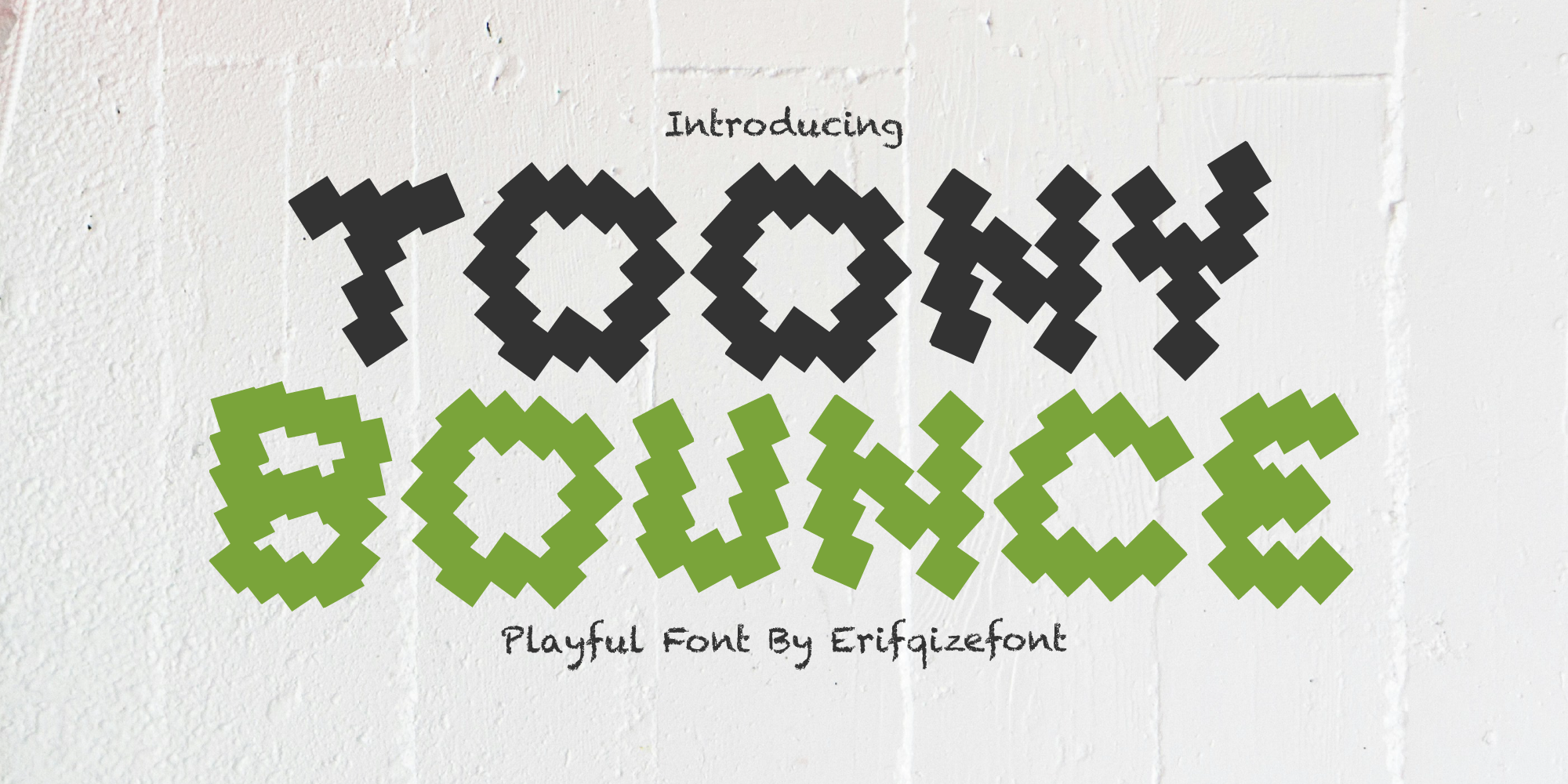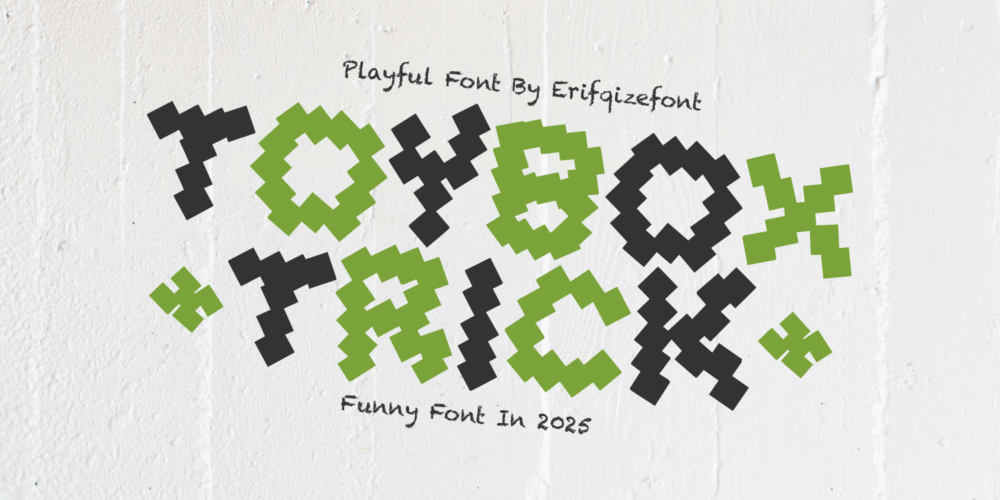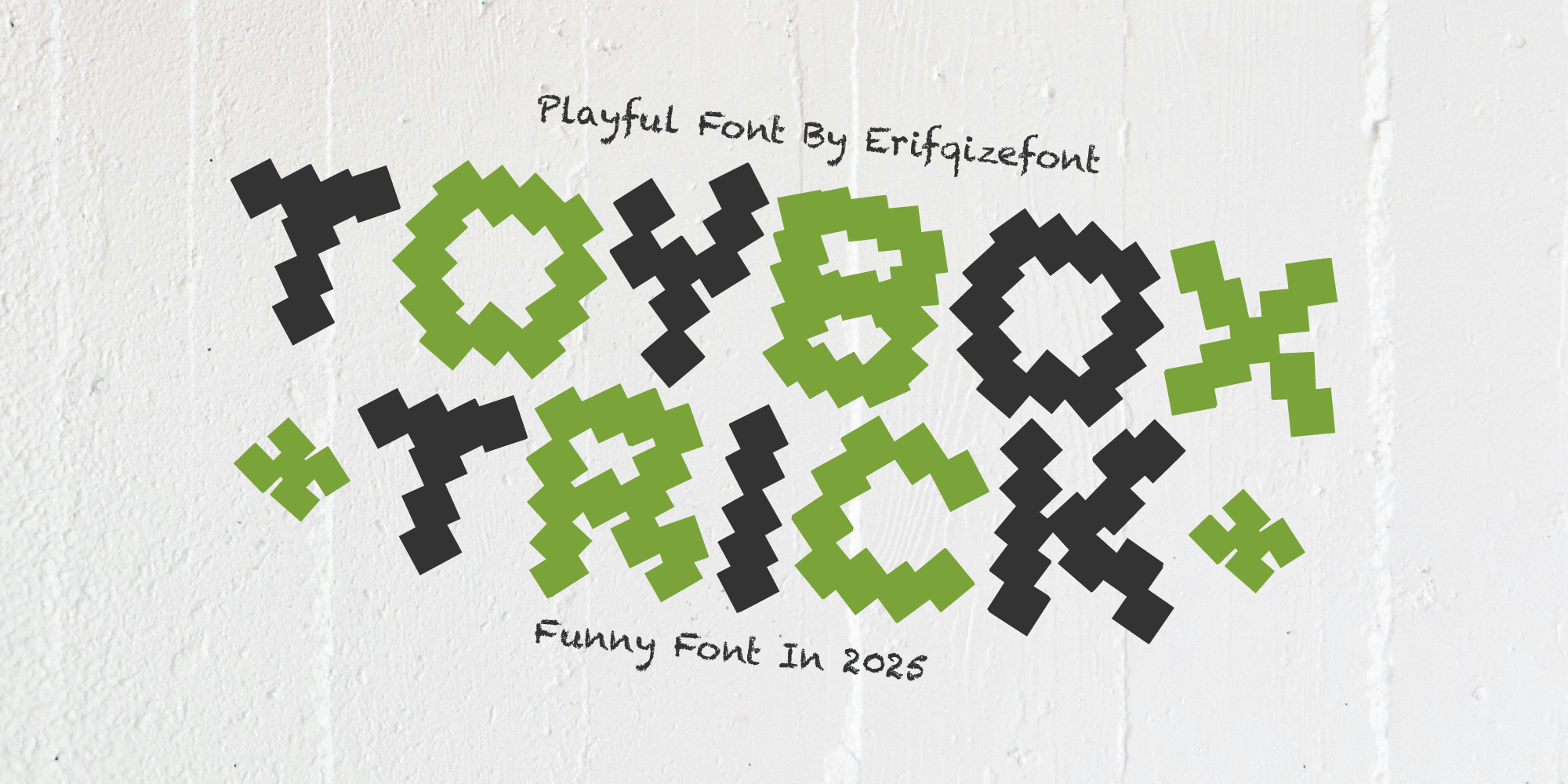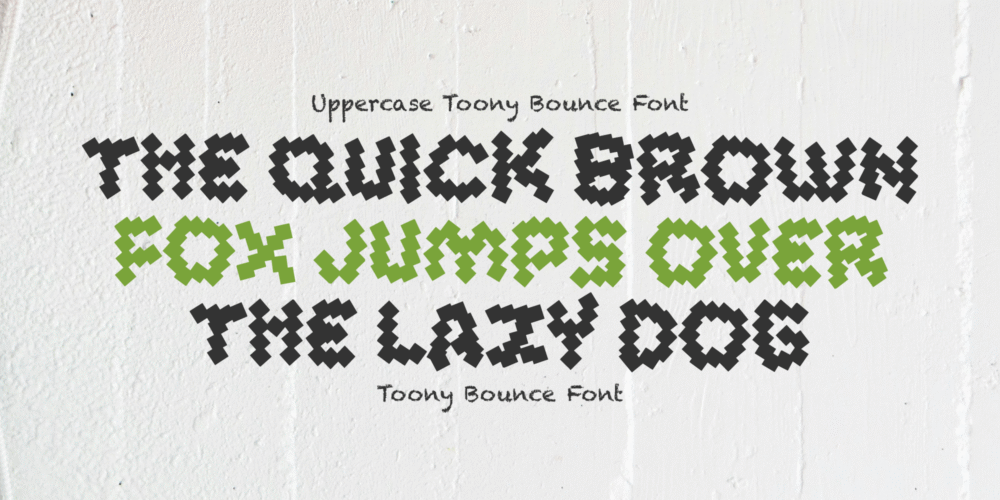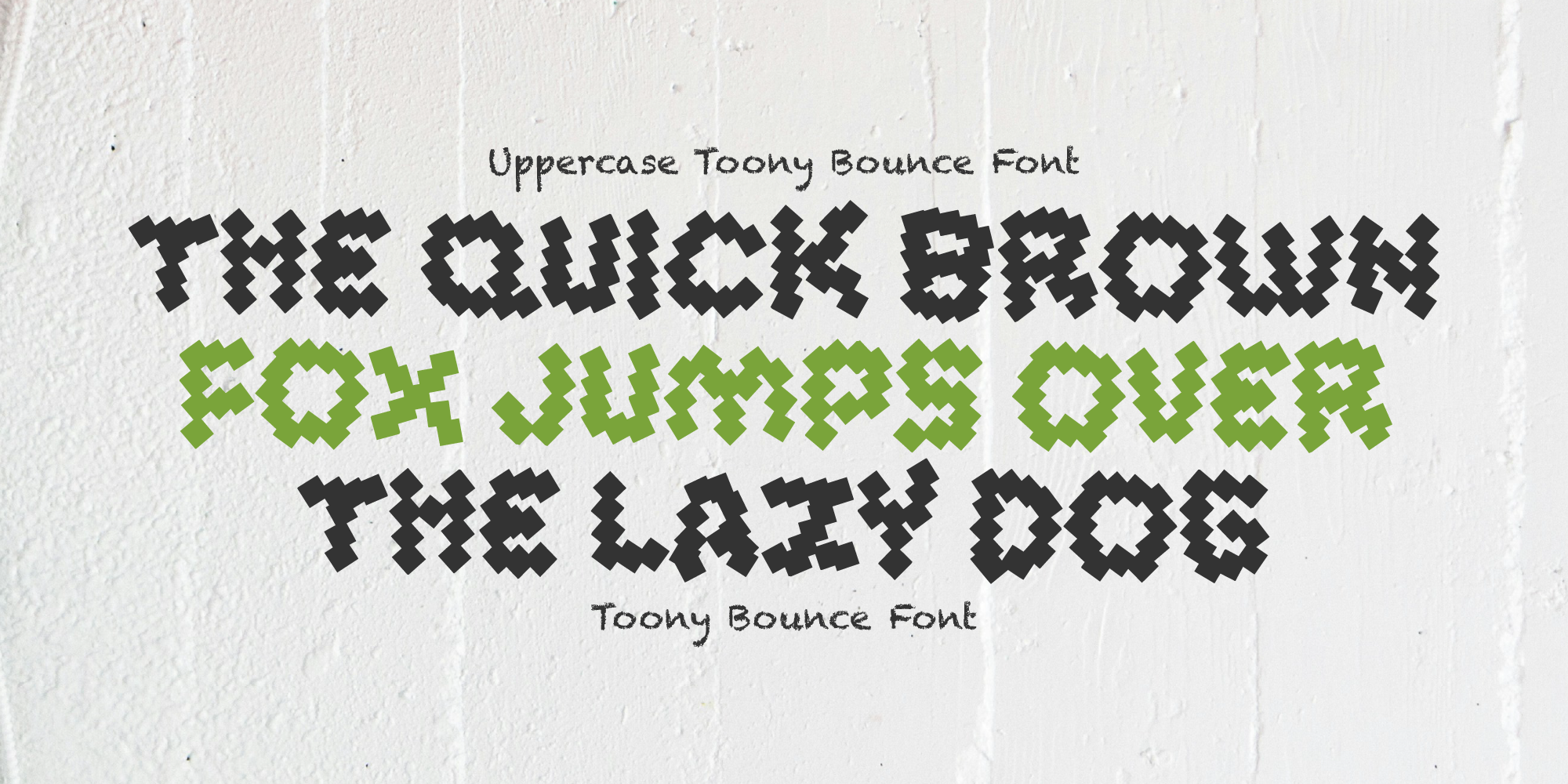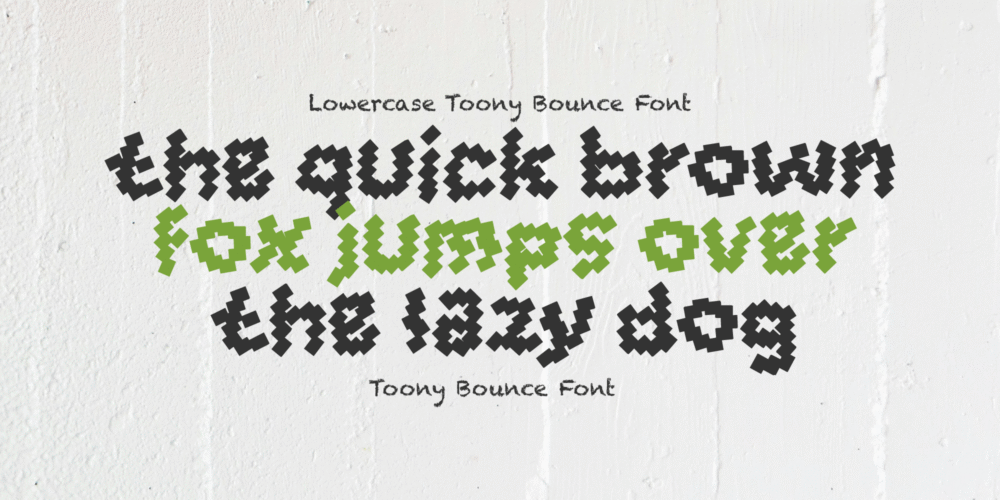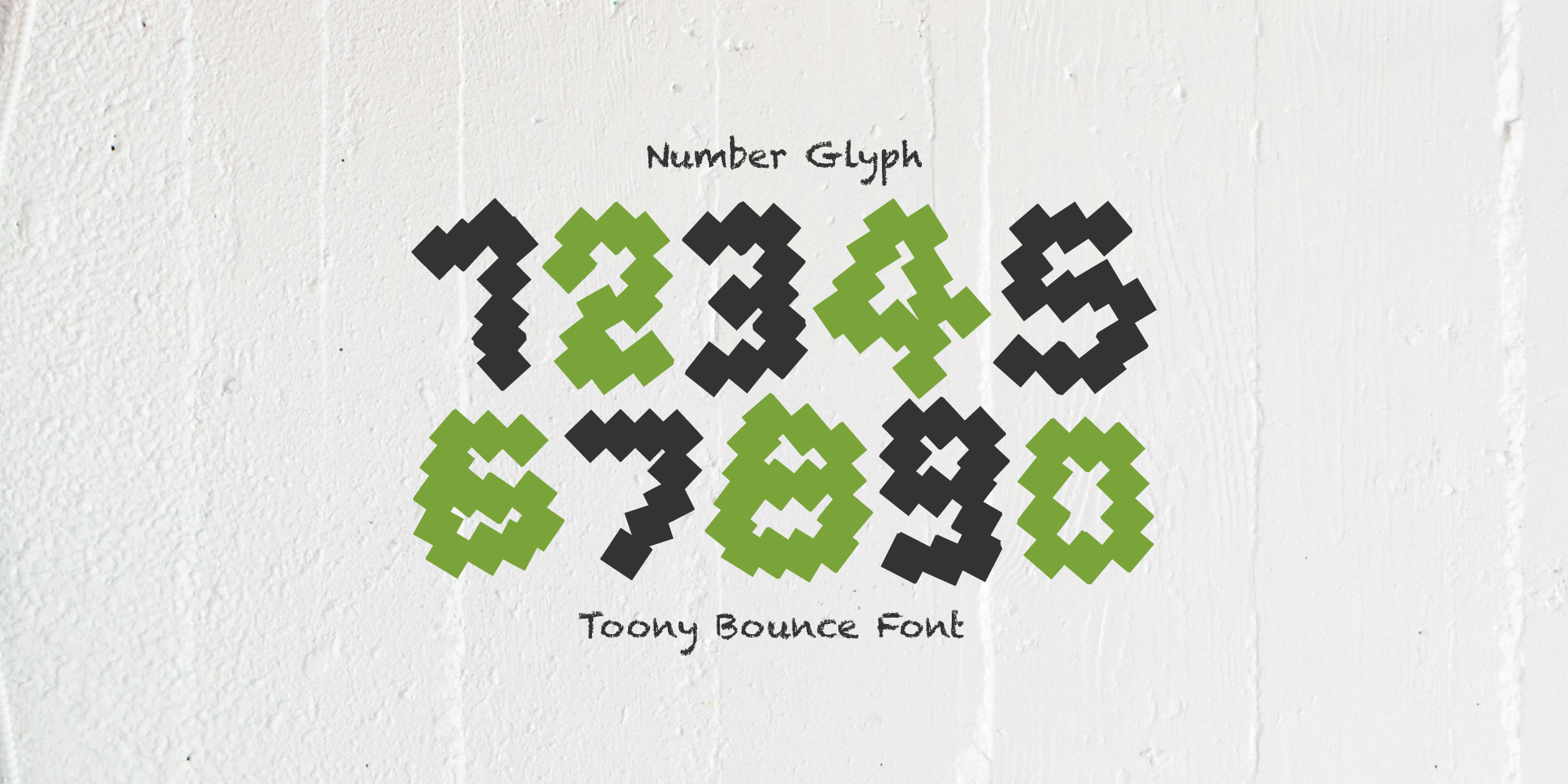
Toony Bounce is a fun and energetic display font packed with quirky personality. Its unique zigzag shapes give each letter a bouncy, dynamic feel—perfect for grabbing attention and adding a joyful vibe to any design. Ideal for kids’ posters, toy packaging, playful branding, or anything that needs a bold and cheerful twist.
Crafted by Erifqizefont, Toony Bounce brings a touch of imagination and movement to your creative projects.
Toony Bounce – Joyful Font
Toony Bounce is a fun and energetic display font packed with quirky personality. Its unique zigzag shapes give each letter a bouncy, dynamic feel—perfect for grabbing attention and adding a joyful vibe to any design. Ideal for kids’ posters, toy packaging, playful branding, or anything that needs a bold and cheerful twist.